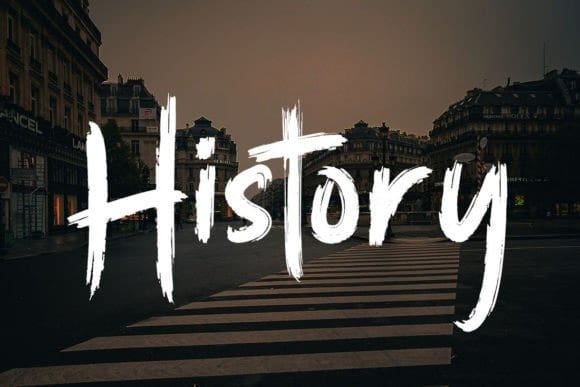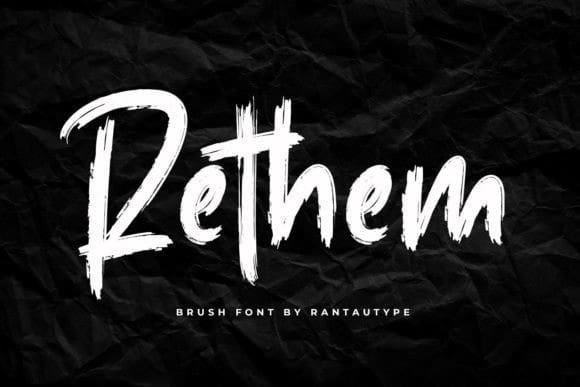
Rethem Brush Font
Rethem Brush Font is a bold brush display font. It is suitable for logos, packaging designs, posters, business card, cover, broadcast, quotes, books, and so much more!